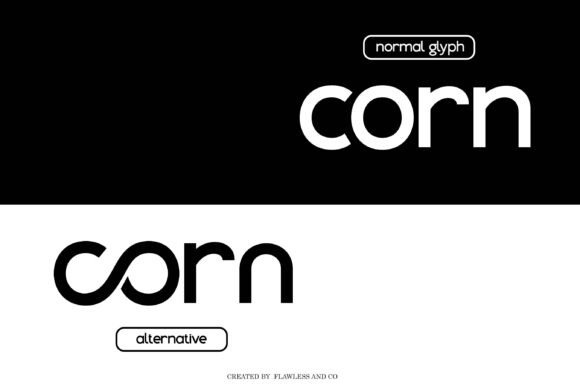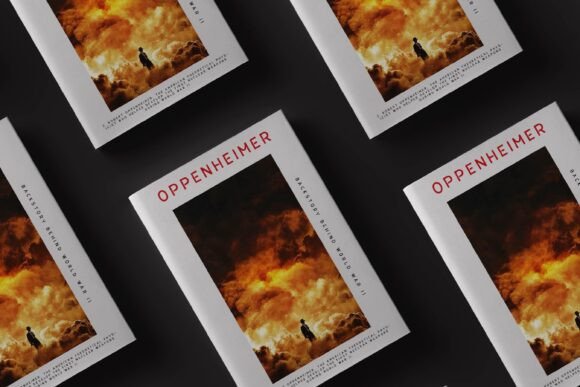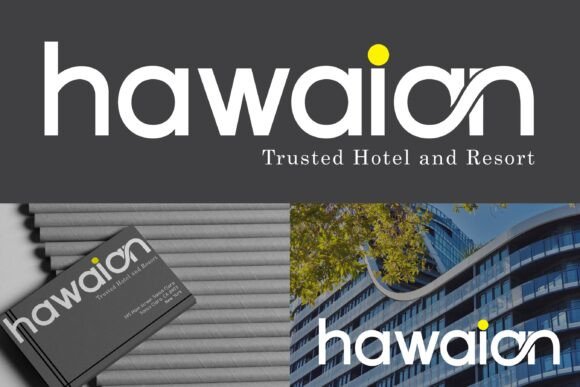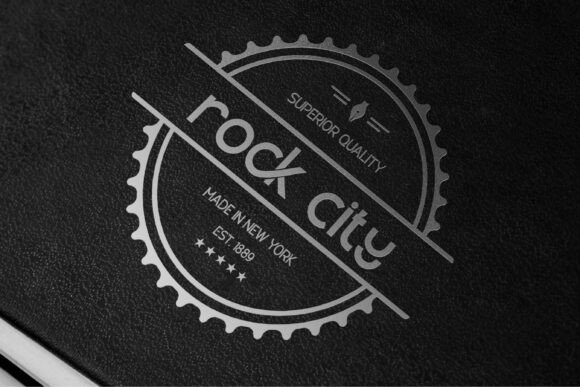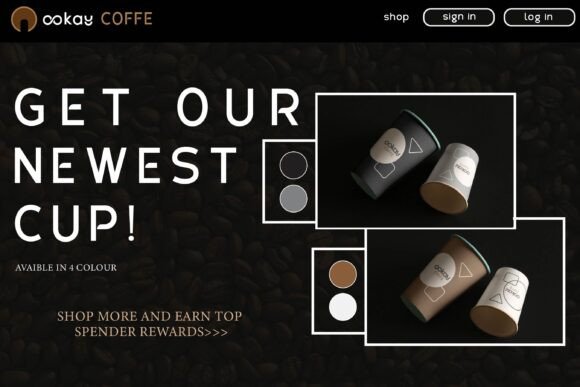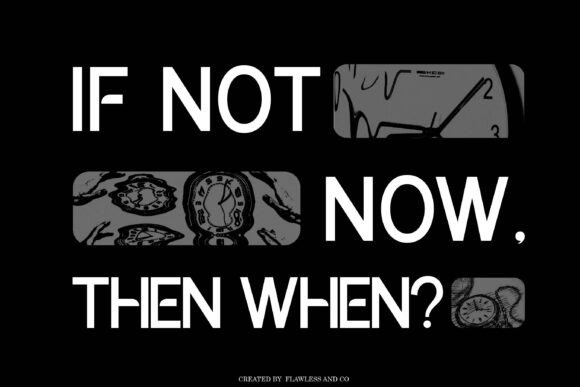
Introduction to Mooxy Font
Have you ever stared at a blank canvas, waiting for the perfect font to spark your creative project? For designers, finding that elusive combination of style and sophistication can be a daunting task. But what if we told you there’s a font that can elevate your branding and identity projects to the next level? Enter the Mooxy Font, a modern logo font designed to bring a sleek and professional touch to your designs.
With its clean lines and contemporary style, the Mooxy Font is perfect for logos, business branding, packaging, website headers, and marketing materials. Its sophisticated yet minimalistic look makes it an ideal choice for businesses and creatives looking for a bold and memorable visual identity. And the best part? The Mooxy Font is available for free download, making it an accessible design resource for all.
- Features a transparent background, making it easy to integrate into any design
- Includes a range of styles and weights to suit different design needs
- Designed to be scalable, with resolutions up to 300 DPI
- Perfect for use in logos, branding, and other visual identity elements
Honest Review: Mooxy Font
As a designer, I’m always on the lookout for high-quality design resources to elevate my creative projects. The Mooxy Font caught my eye with its unique and playful style. In this review, I’ll share my honest thoughts on this font, including what works well and what could be improved.
- ✨ The font has a transparent background, making it easy to work with and allowing for seamless integration with any design.
- ✨ The high-quality design makes it perfect for a variety of creative projects, from branding to print materials.
- ⚠️ The font may not be suitable for all types of projects, particularly those requiring a more formal or professional tone.
- ⚠️ Some users may find the font’s unique style to be too quirky or distracting.
Overall, I’m impressed with the Mooxy Font and think it’s a great addition to any designer’s toolkit. While it may not be perfect for every project, its unique style and high-quality design make it a valuable resource for creative projects. I’d definitely recommend it to designers looking for a fresh and playful font.
Mooxy Font
The Mooxy Font is a high-quality design resource perfect for creative projects. With a transparent background, it’s ideal for use in various applications, including digital and print media.
The Mooxy Font is ideal for use in creative projects, such as logos, business cards, and marketing materials. It’s also perfect for use in digital media, such as social media graphics and website headers.